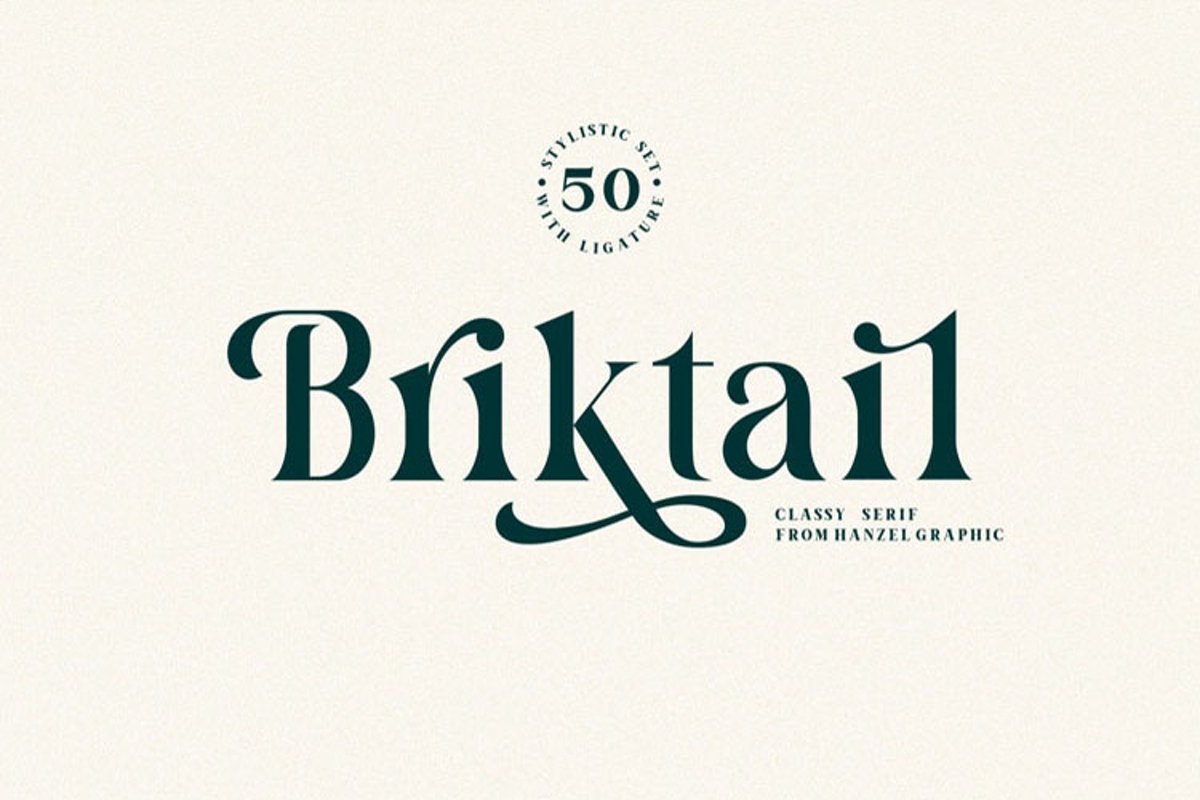
Briktail//Modern Serif Font
Briktail
This modern serif typeface features serifs. Perfect for gorgeous logos & titles, Briktai will pair beautifully with many fonts and work well with whatever project you're working on.
• Containing full set of punctuation and numerals
• Include Alternate, Swash & stylistic set Typeface.
• An broader version of the font for a Briktai different feel.